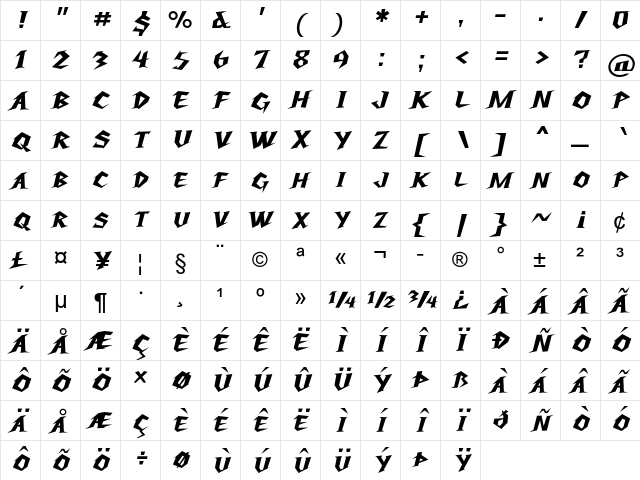
Steeltrap Regular Free Font
Steeltrap Regular
Steeltrap Family
Design Context for Steeltrap
Steeltrap is a composed and adaptable typeface that performs quietly and consistently across a wide range of design contexts.